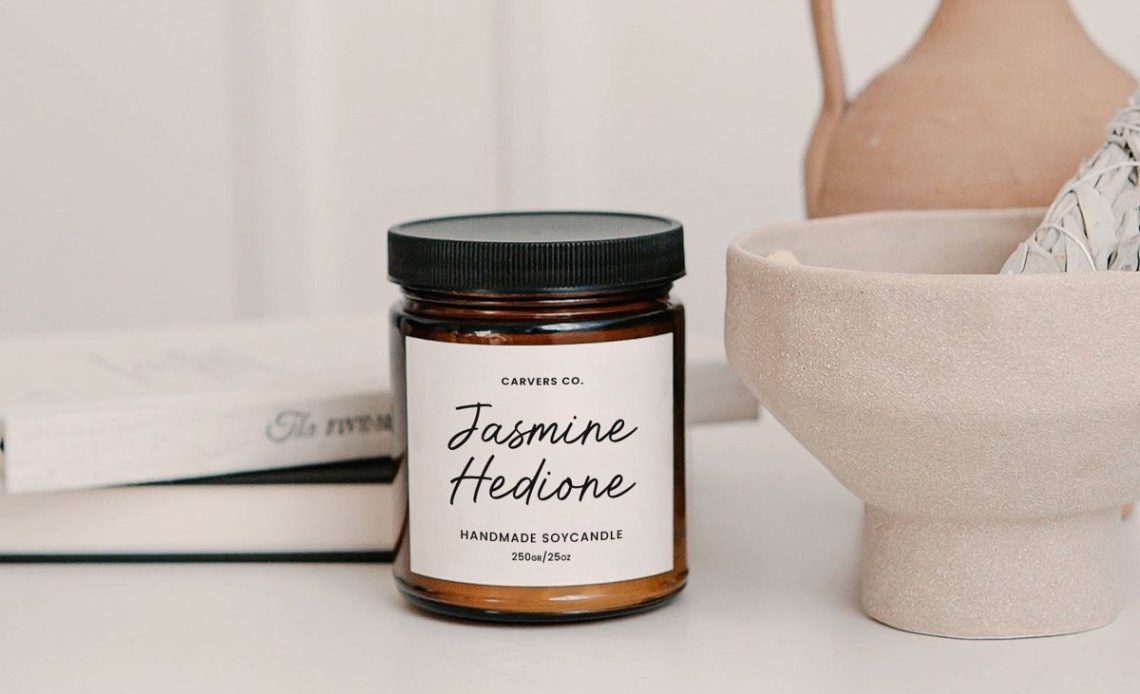
Introducing Kinestone Handwritten Font, a modern and stylish script font that is perfect for your creative projects. Created by Seagulls Creative, this font is not just any ordinary script font, but it is specifically designed to be used for Samsung Notes.
Kinestone is a versatile font family that can be used for a variety of projects, including branding, labels, photography, invitations, stationery, wedding designs, social media posts, advertising, product packaging, product design, and more. With Kinestone, you can elevate your projects and give them a personal and unique touch.
With Kinestone, you have the freedom to express yourself in any language, as the font includes multilingual support. Whether you want to add a touch of elegance to your designs or make them stand out with a unique handwritten style, Kinestone is the font for you.